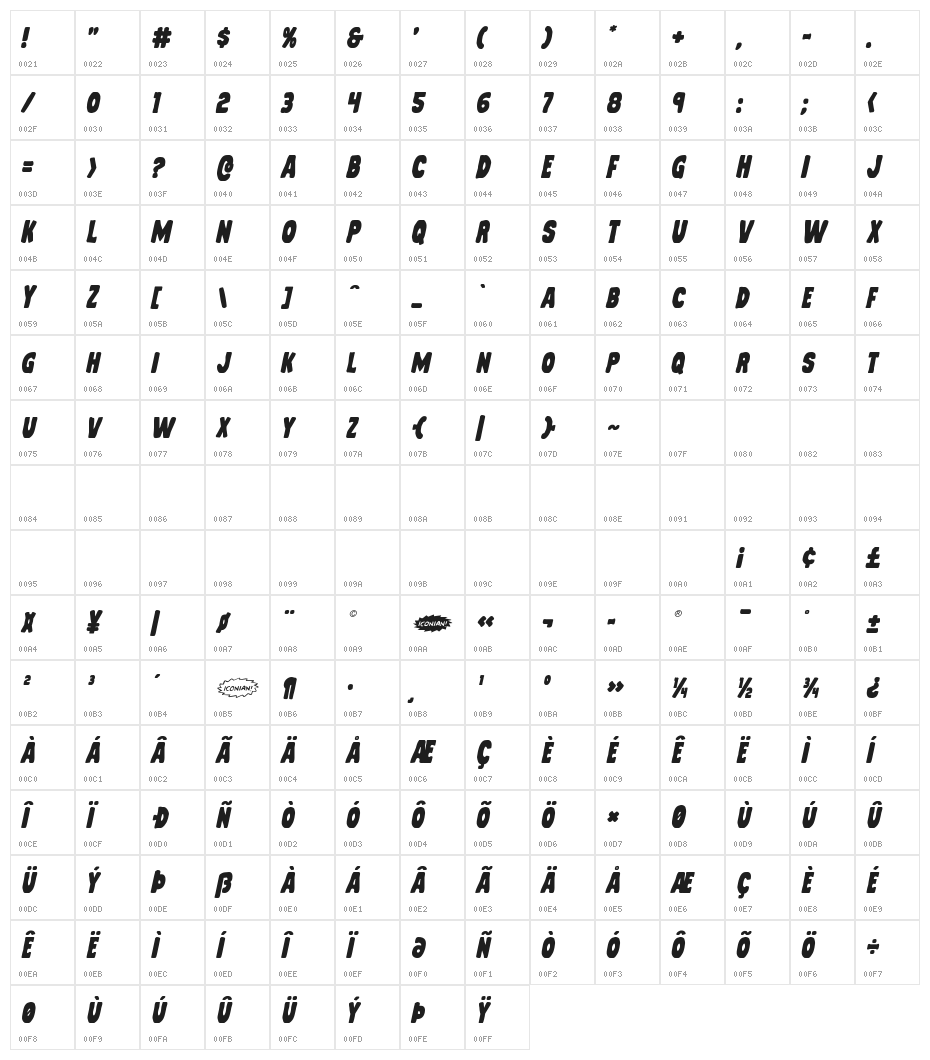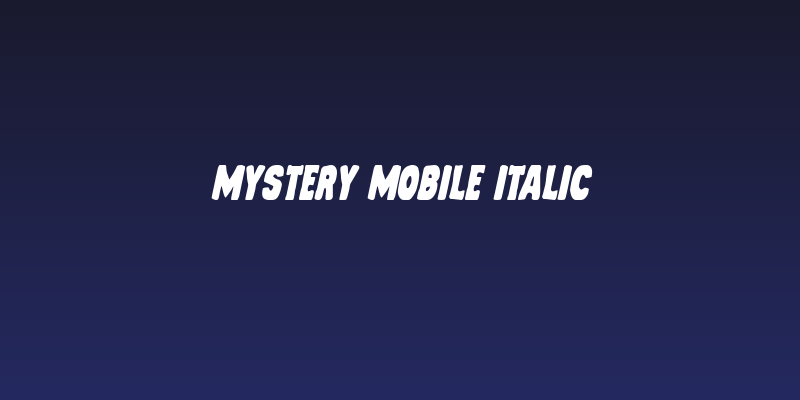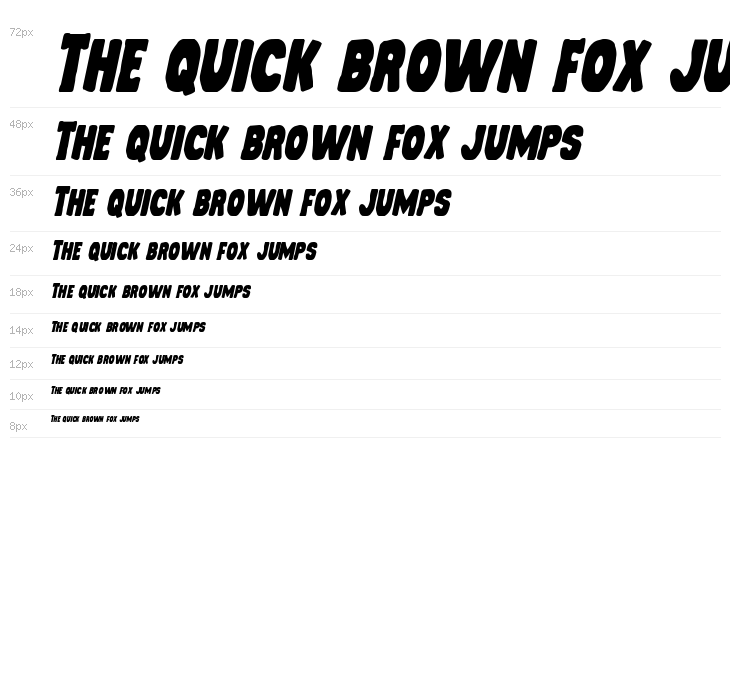
Mystery Mobile Italic Font
Mystery Mobile Italic Description
This font features bold, rounded characters with a playful and dynamic appearance. The letters are italicized, giving them a forward-leaning stance that adds a sense of movement and energy. The strokes are thick and consistent, creating a strong visual impact. The overall design is informal and friendly, making it suitable for projects that require a lively and approachable feel. The characters are closely spaced, enhancing the compact and cohesive look of the text. This style is ideal for catching attention and conveying a sense of fun and excitement.
| Proposed Projects | Great for children's books, playful branding, event posters, and social media graphics. |